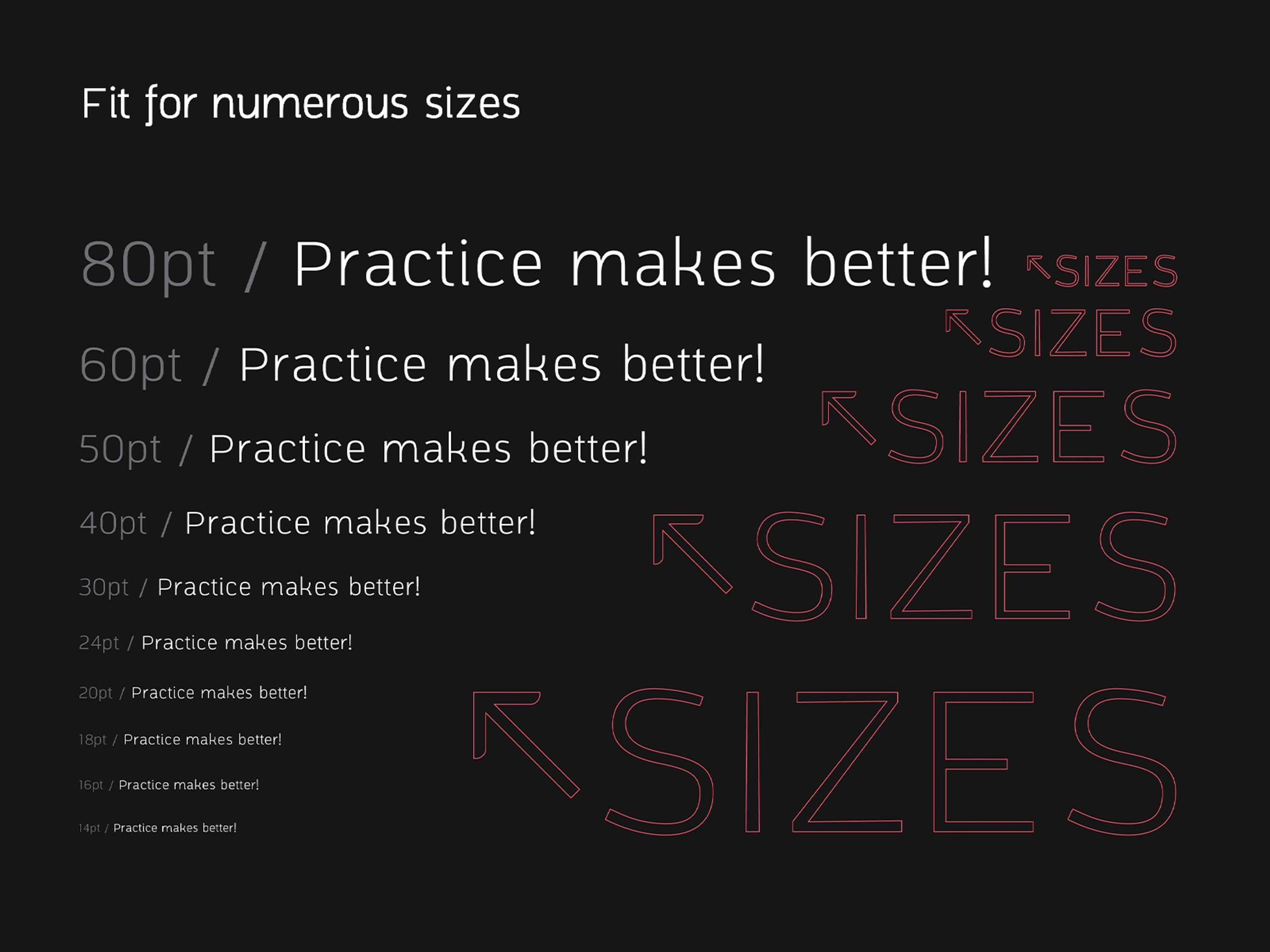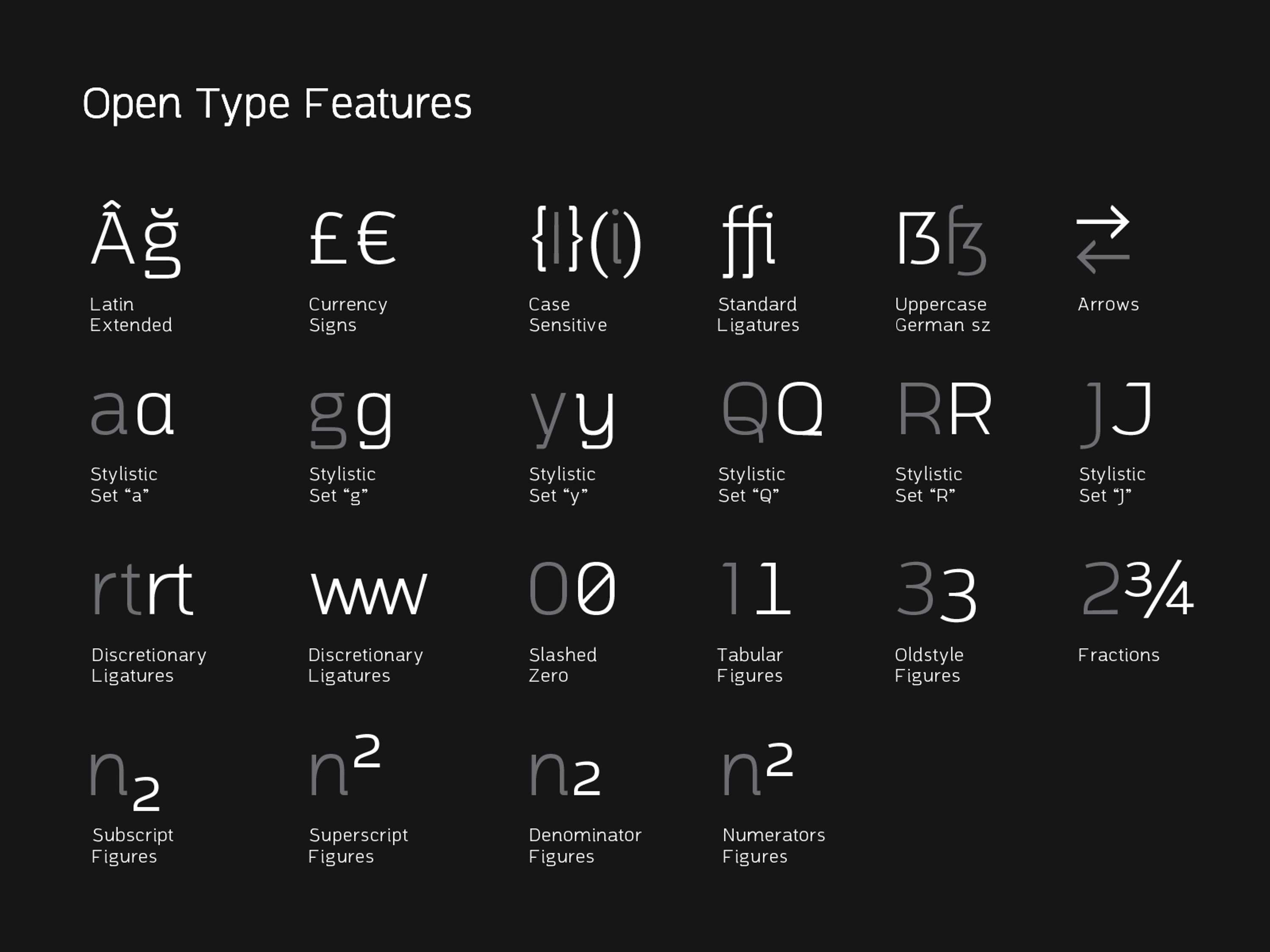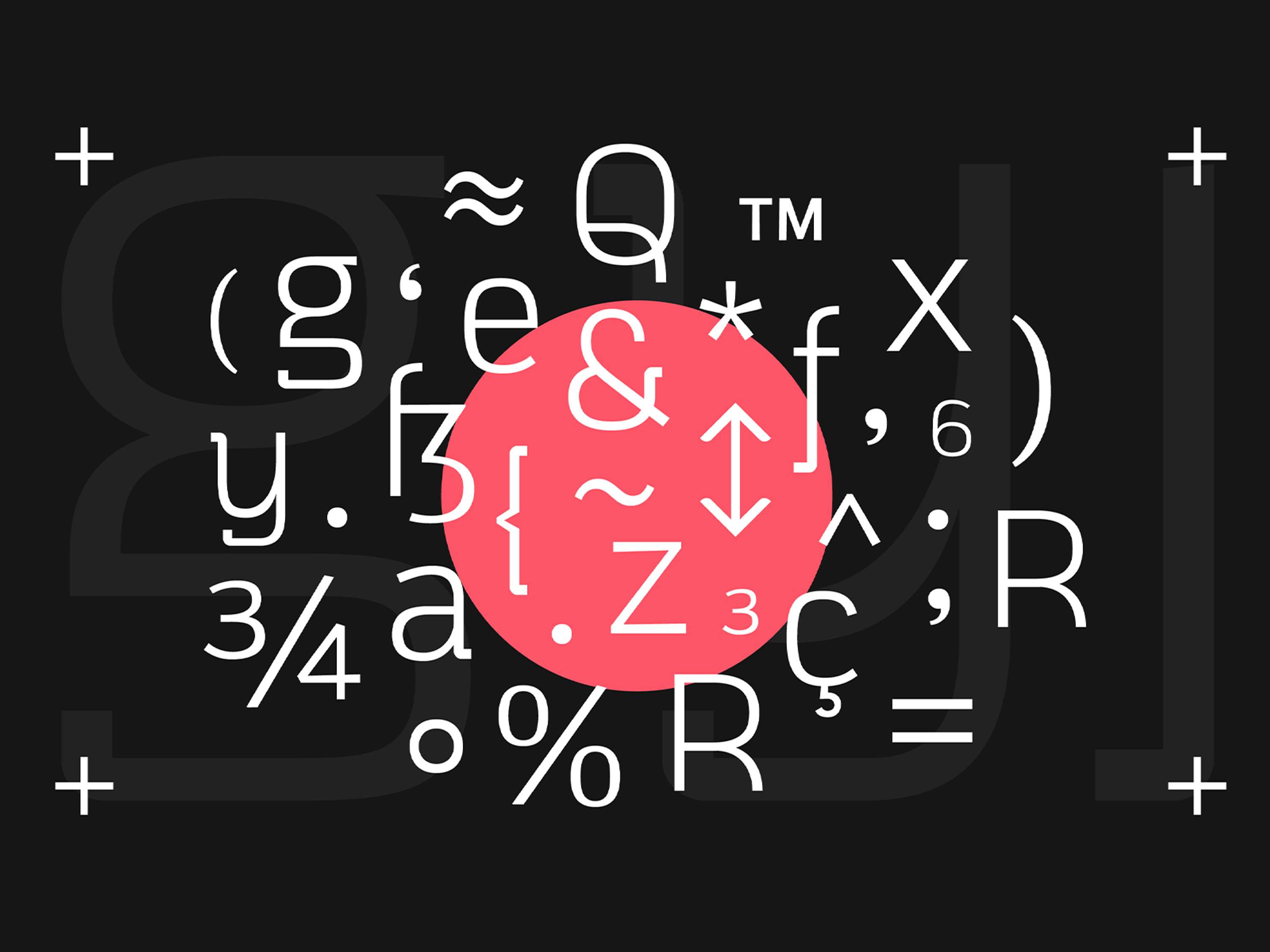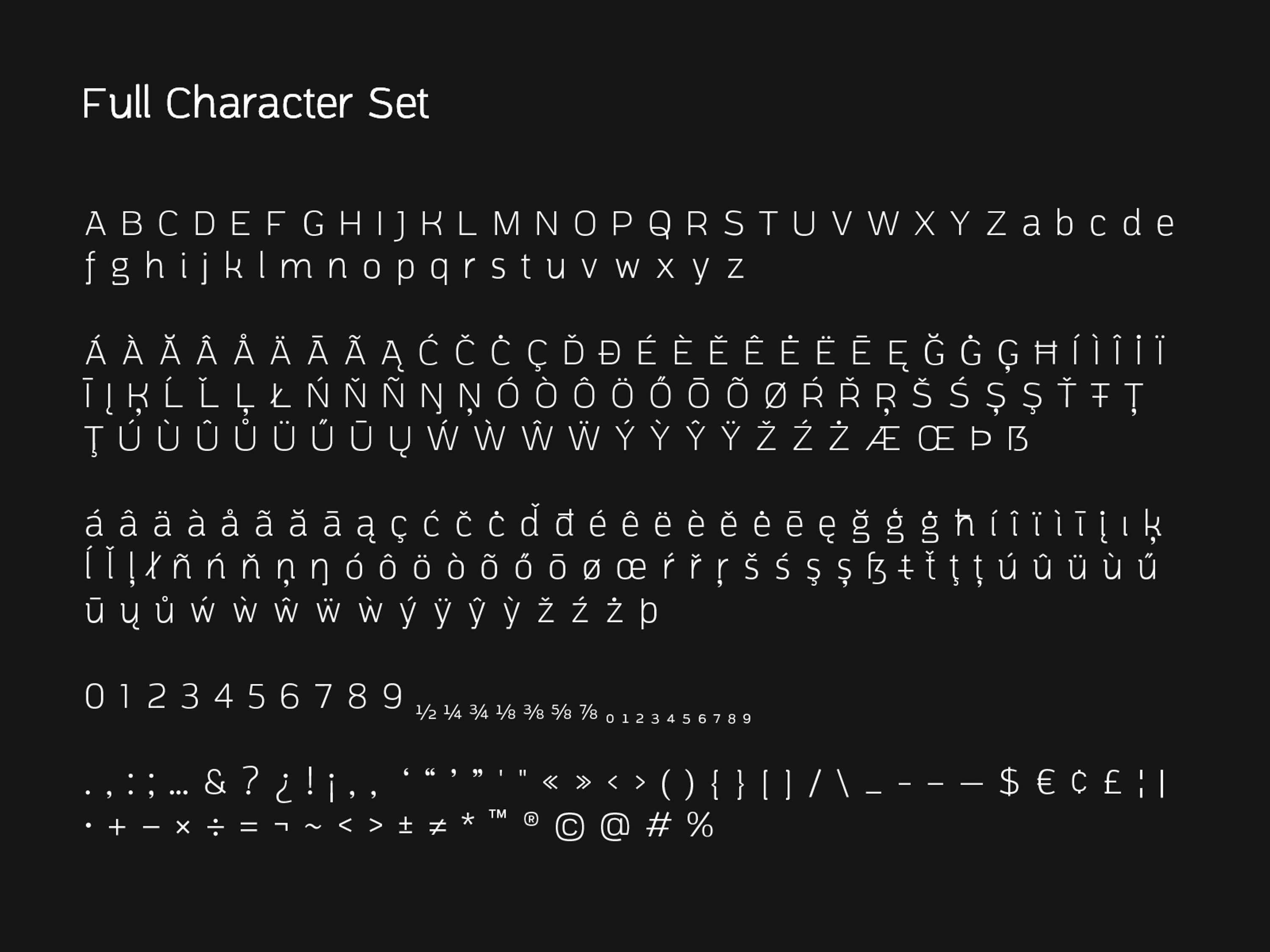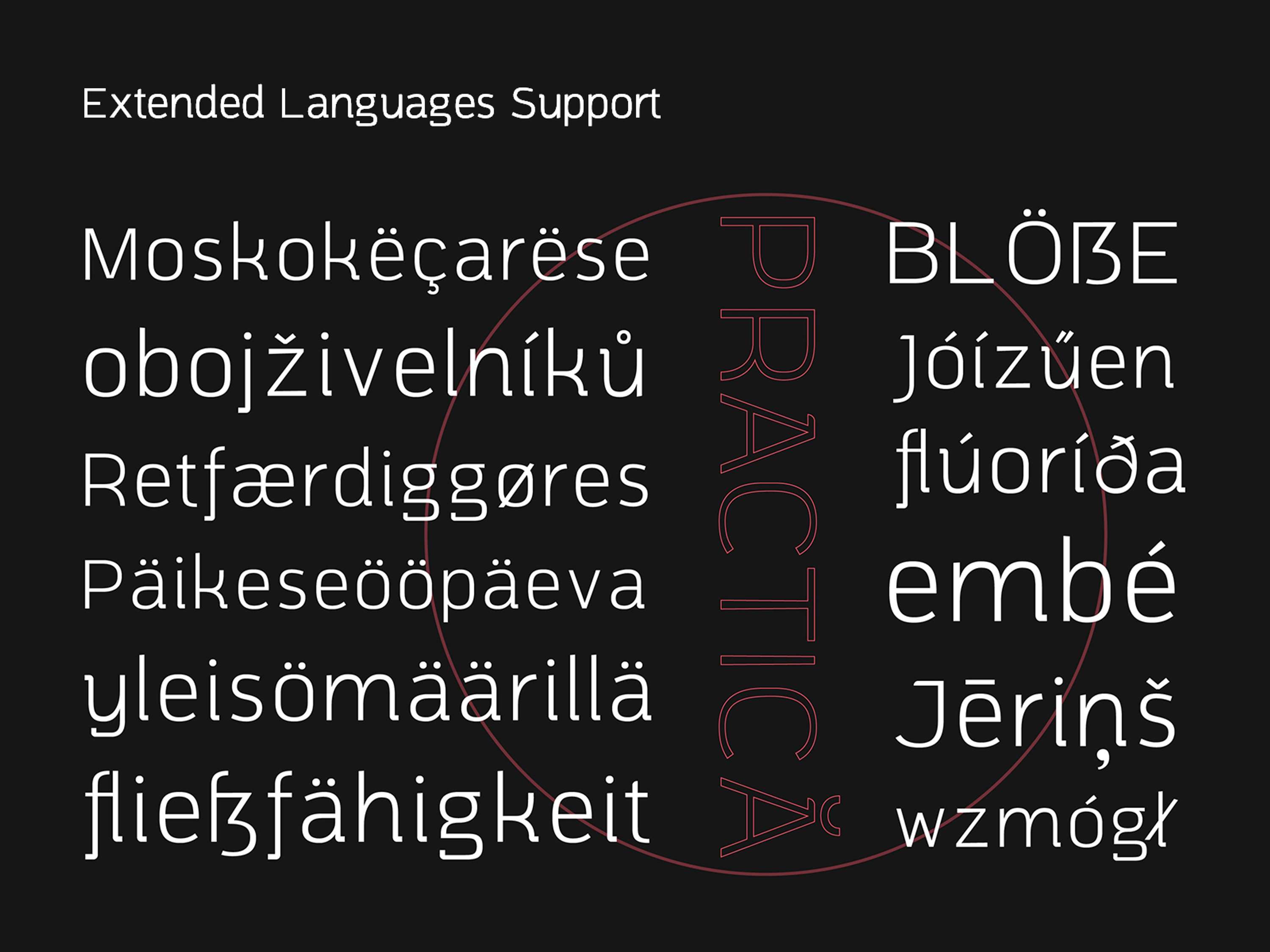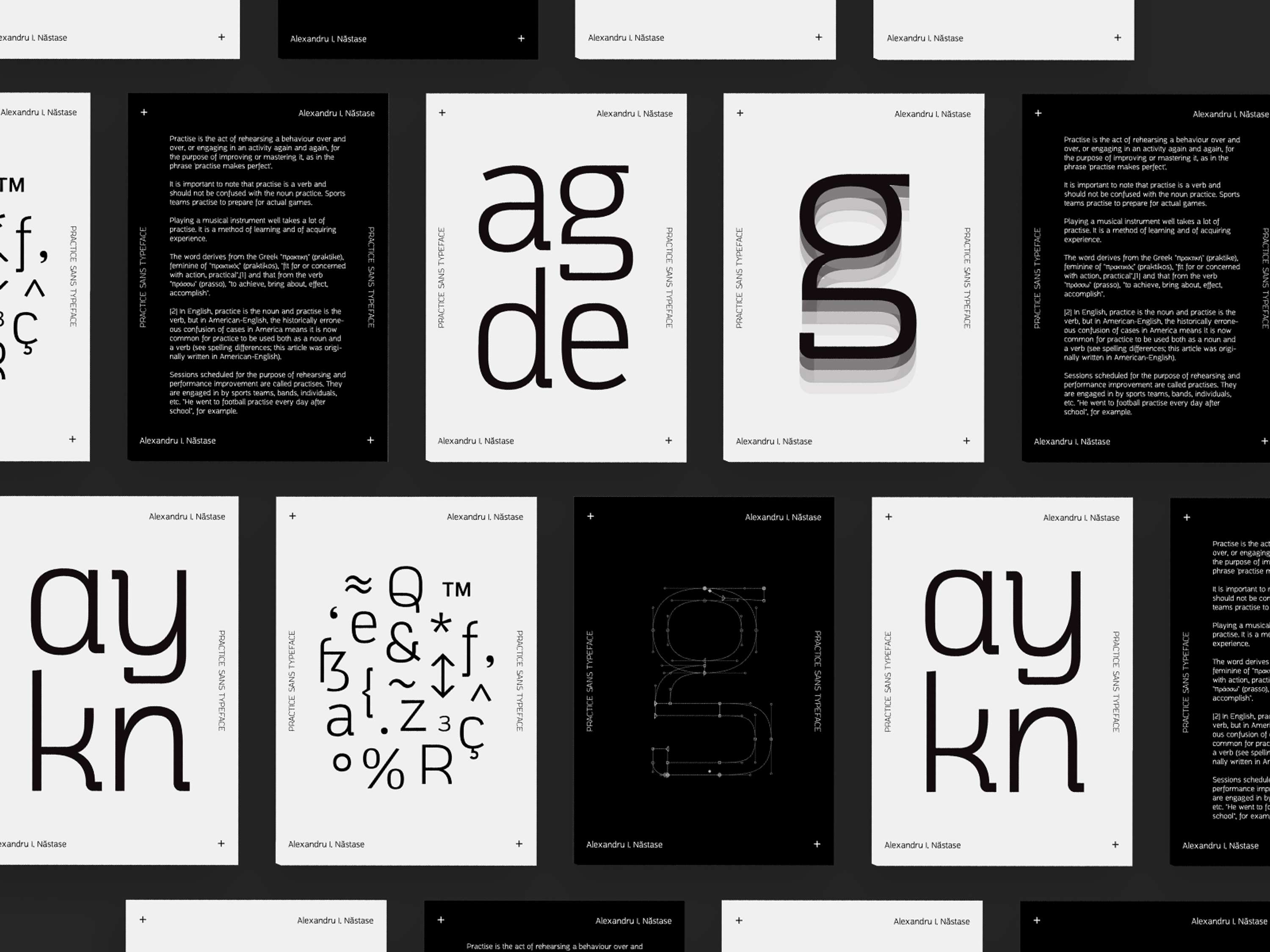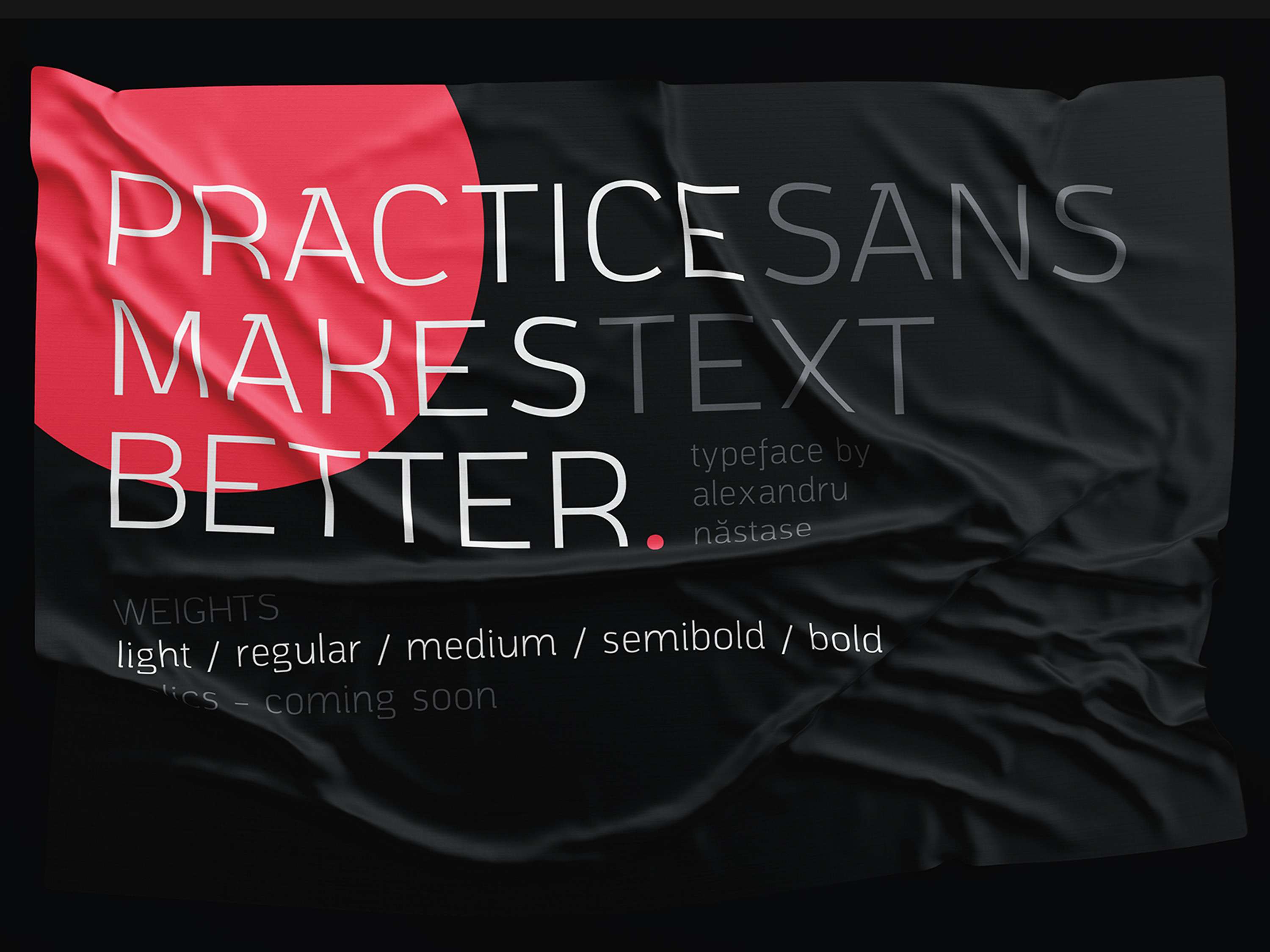
Practice Sans Typeface
• Alexandru Năstase
Practice Sans is a proprietary typeface that came out from a need to specialize and offer a medium to show dense quantities of information within a small space but also keeping a certain personality to it. Practice Sans is the result of long research, testing, and observation which gave rise to an edgy yet serious and well-structured sans-serif typeface with a power-horse mindset at its roots. Its inclinations towards dense information come of course from having a tall x-height to better support & increase readability and a simulated condensed feel to maximize the number of characters that could fit on just one line. The current version has a minimum of 342 glyphs, supports 21+ languages, and will come in four weights for the time being.
Practice Sans Typeface by Alexandru Năstase